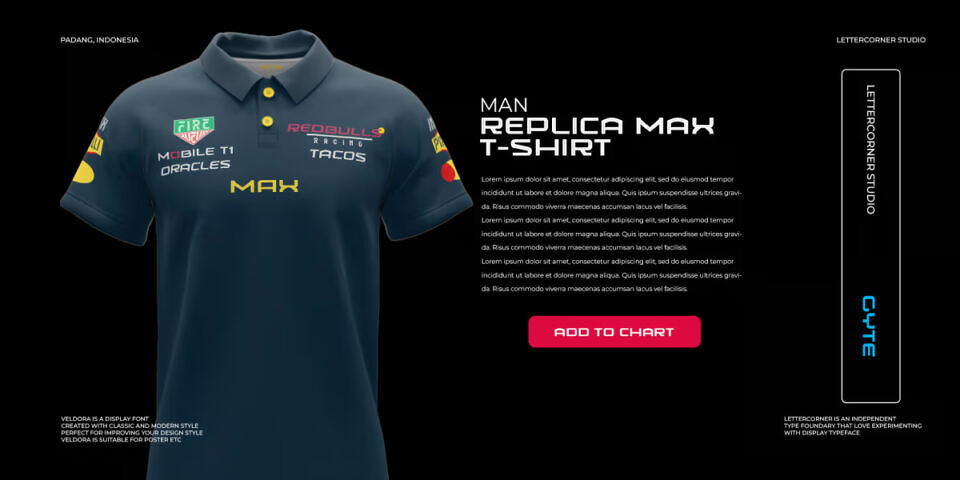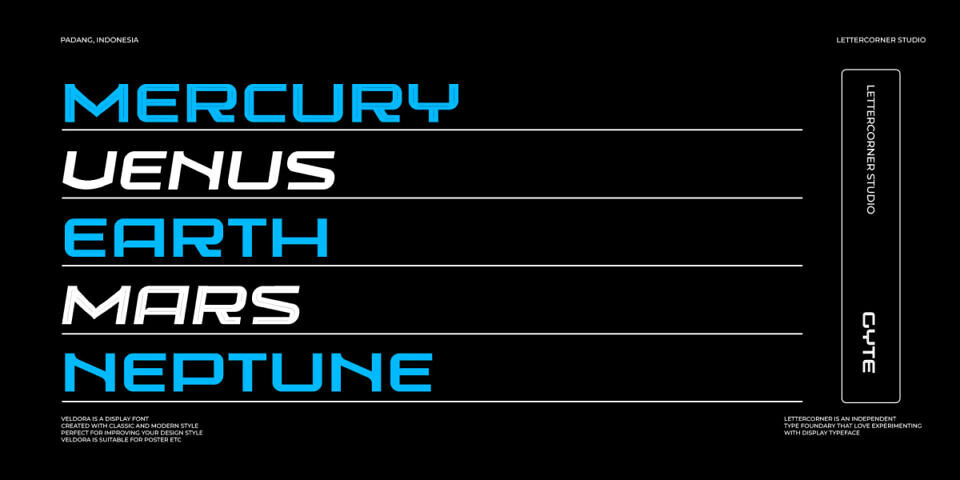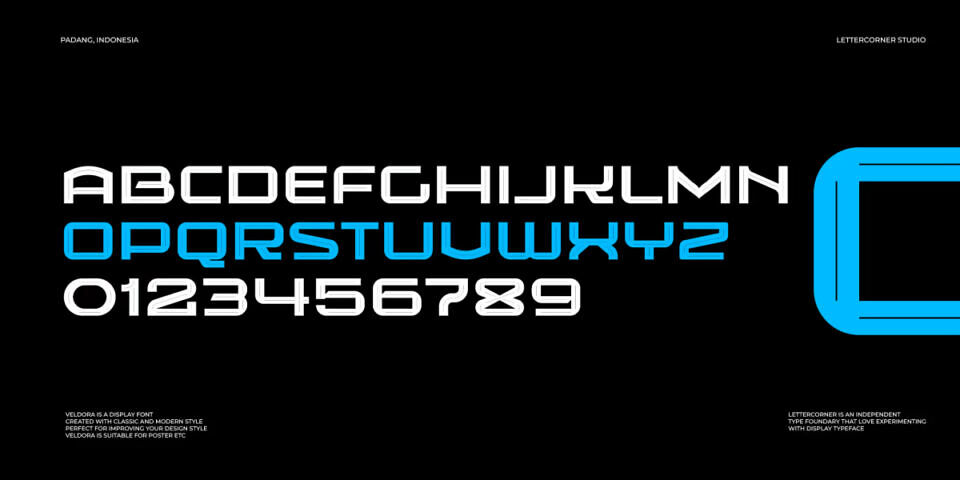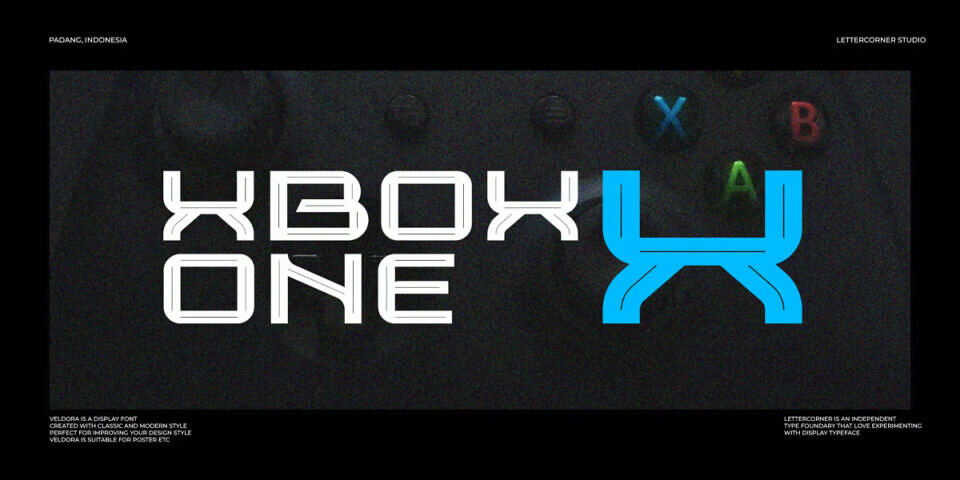
Gyte Font
Gyte is a modern, geometric sans-serif font designed by Lettercorner Studio. With a clean, futuristic style, it is perfect for projects requiring visual impact, such as titles, posters, and logos.
Available in regular and italic versions, Gyte includes 135 characters. This versatile typeface combines technological aesthetics with a sleek design, making it suitable for themes like science fiction, sports, and graphic design.